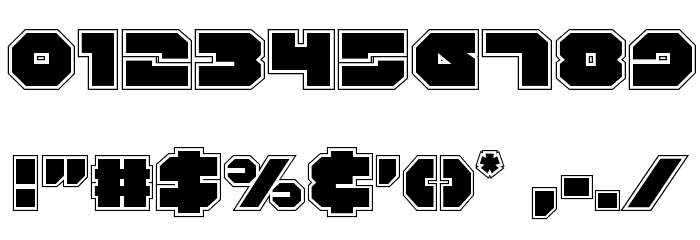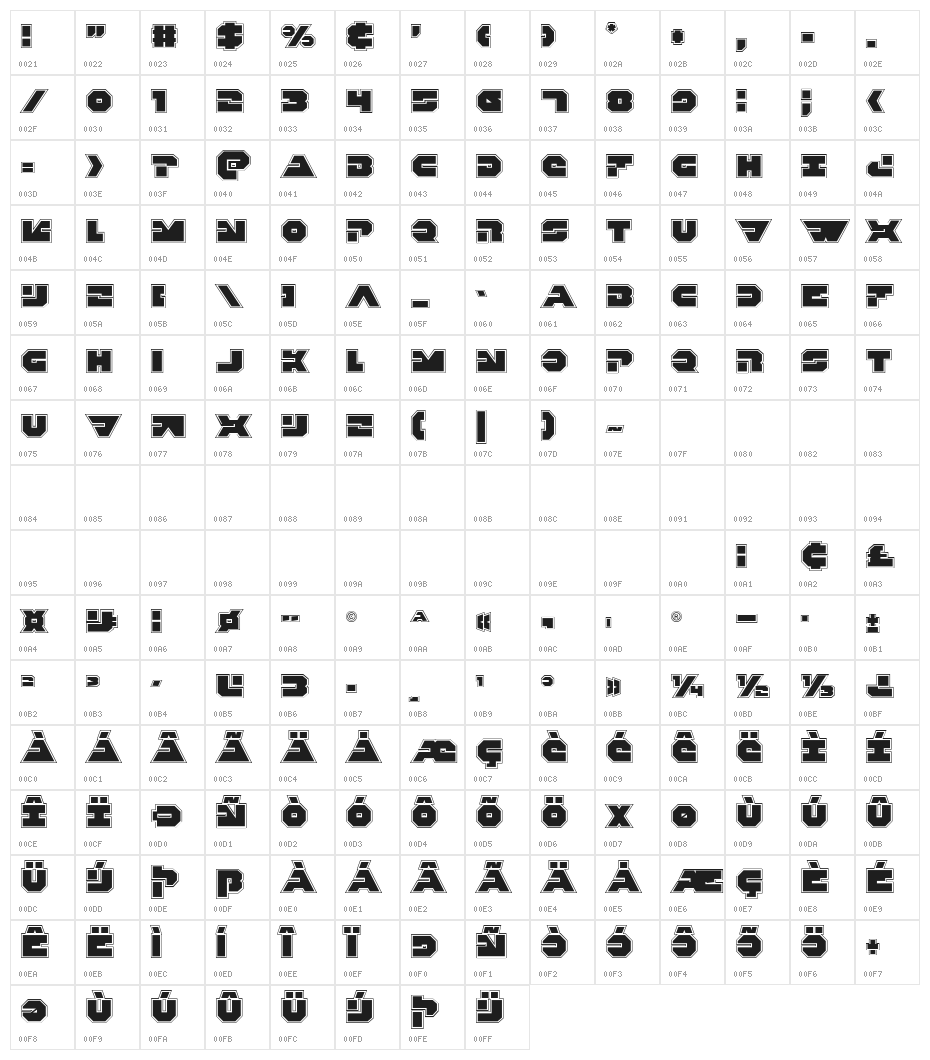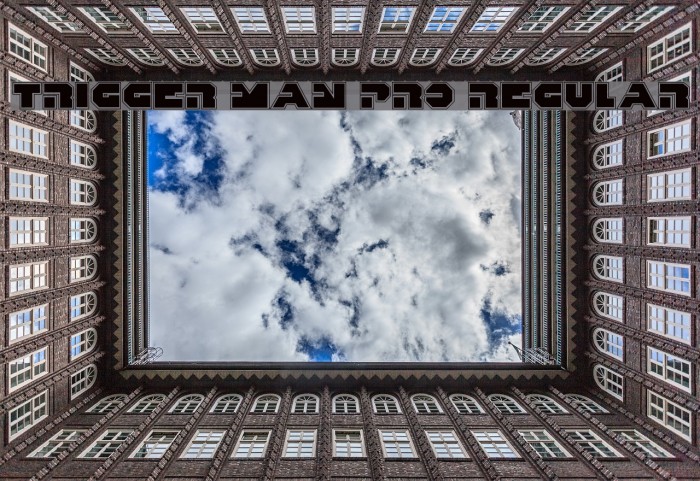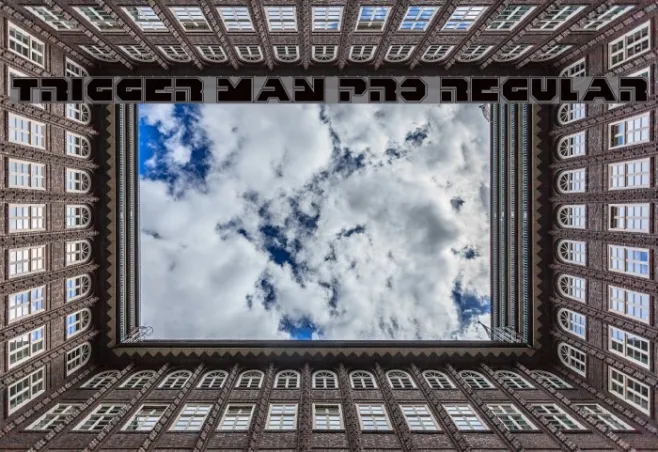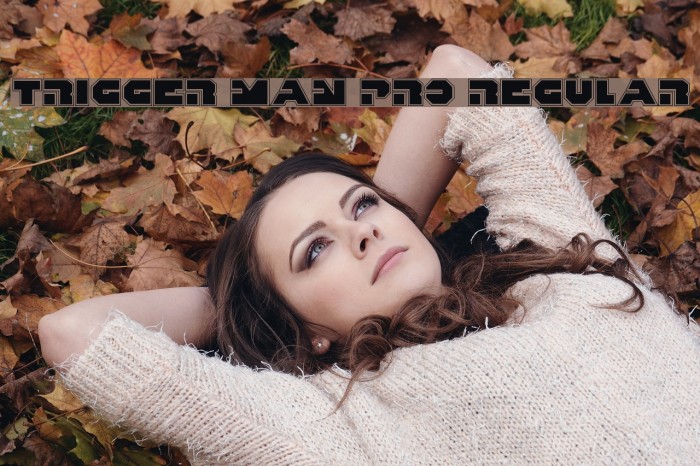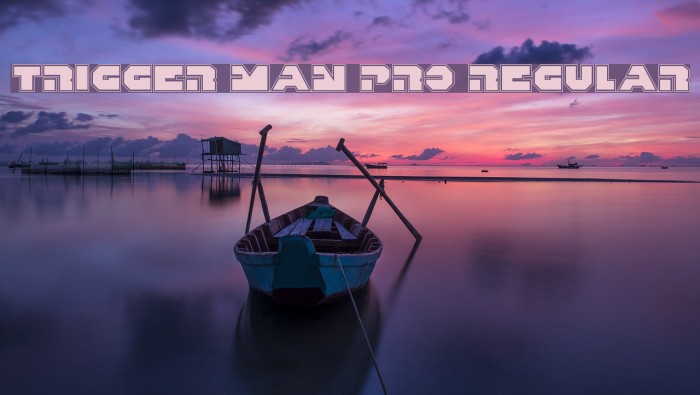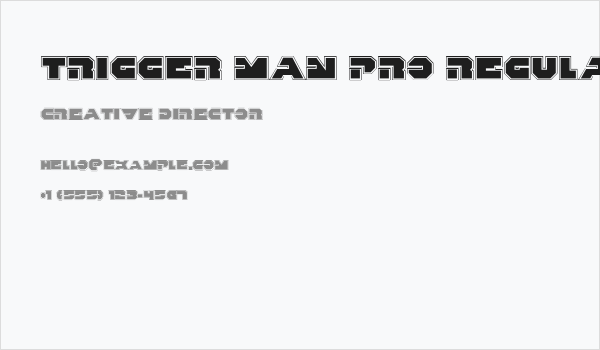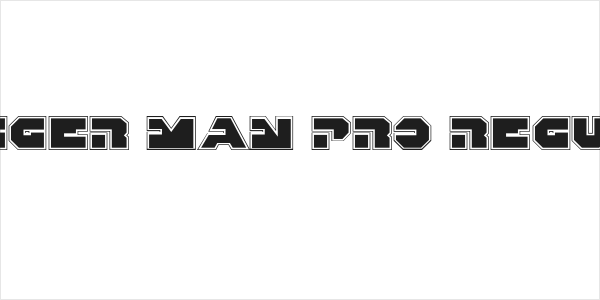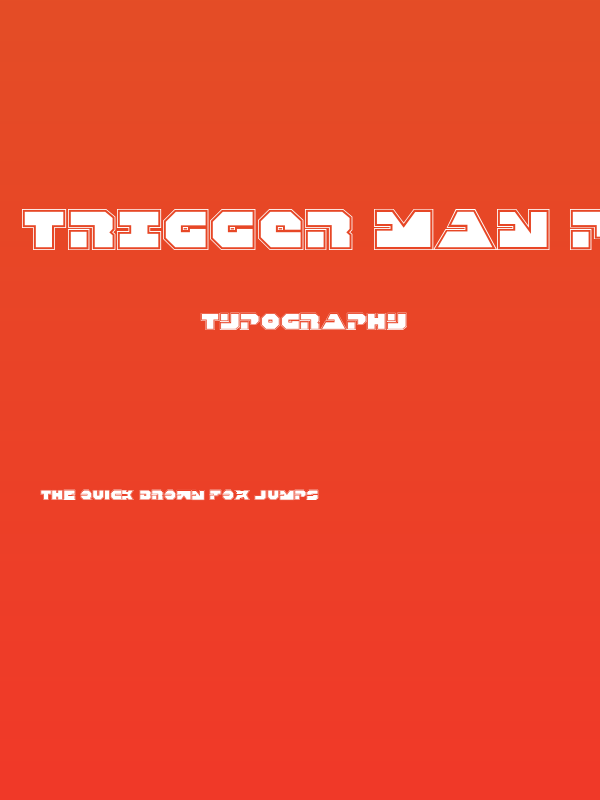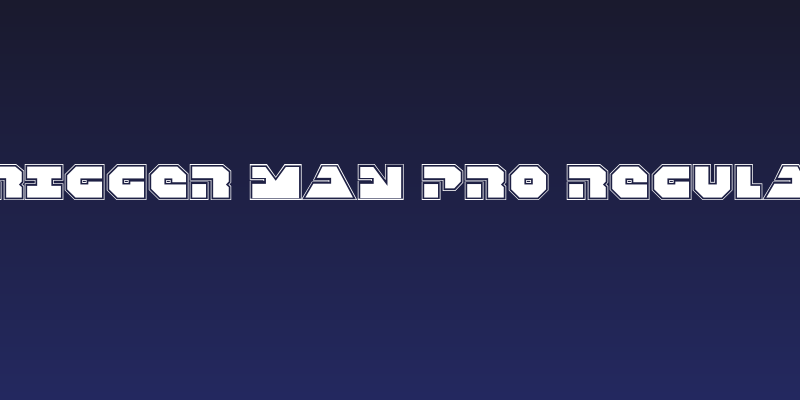
Trigger Man Pro Regular Font
Trigger Man Pro Regular Description
This font features a bold, geometric design with a futuristic and industrial feel. The characters are constructed with thick, block-like shapes that create a sense of strength and solidity. Each letter is uniquely stylized with angular cuts and sharp edges, giving it a distinct and edgy appearance. The uppercase and lowercase letters maintain a consistent style, while the numbers and special characters complement the overall design. The font's boldness and unique character shapes make it ideal for projects that require a strong visual impact.
Overall StyleFuturistic, Industrial
Proposed ProjectsIdeal for video game titles, sci-fi movie posters, tech branding, and industrial-themed designs.